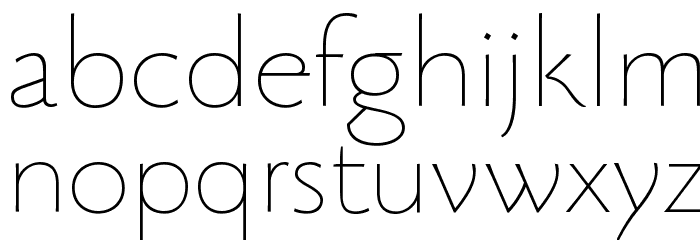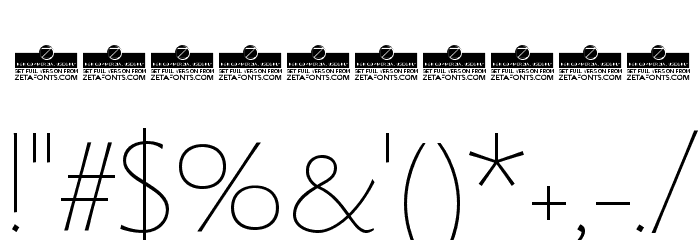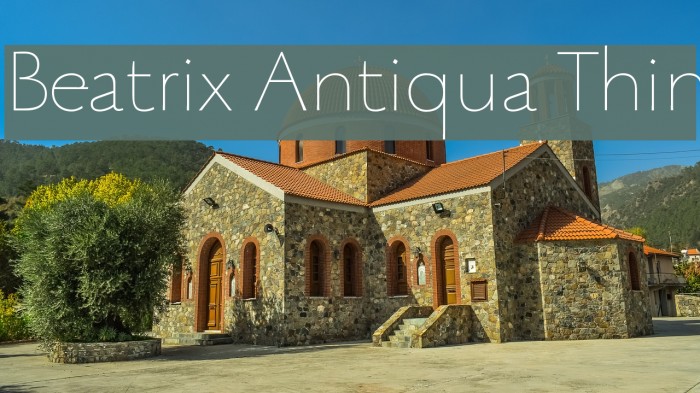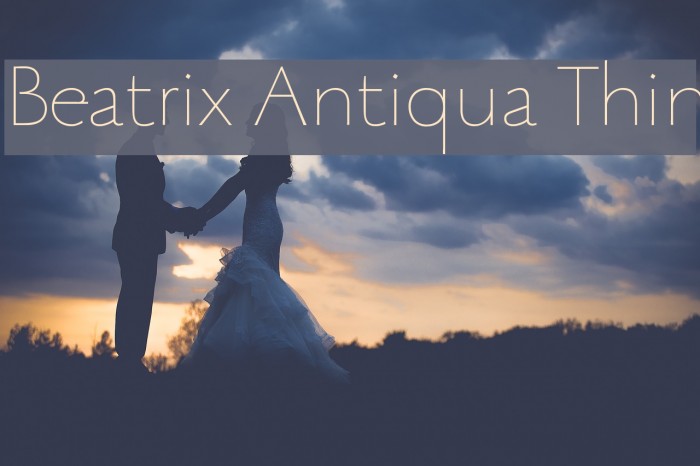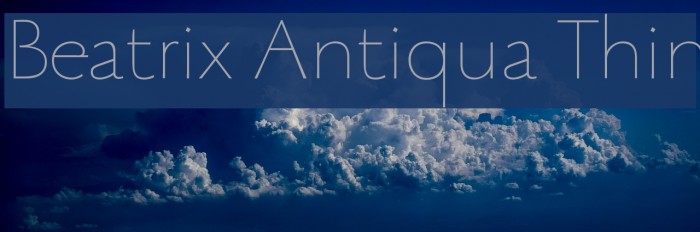
Beatrix Antiqua Thin Font
This elegant typeface features a thin, refined structure with clean lines and a modern aesthetic. The uppercase letters are tall and slender, while the lowercase characters maintain a consistent flow with subtle curves. The numerals are straightforward, complementing the overall minimalist style. Special characters are designed with the same attention to detail, ensuring a cohesive look across all glyphs. This font's simplicity and sophistication make it suitable for a variety of design applications.
A thin, elegant typeface with a modern and minimalist design.
- Proposed Projects: Ideal for luxury branding, editorial design, fashion magazines, and minimalist websites.
- Category: Modern
- Weight: Light
- Use Case: Headlines, Logos, Editorial design